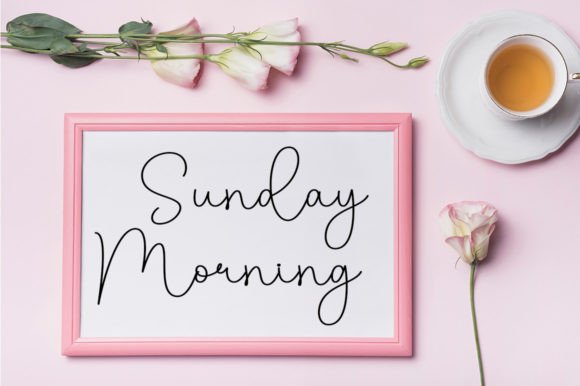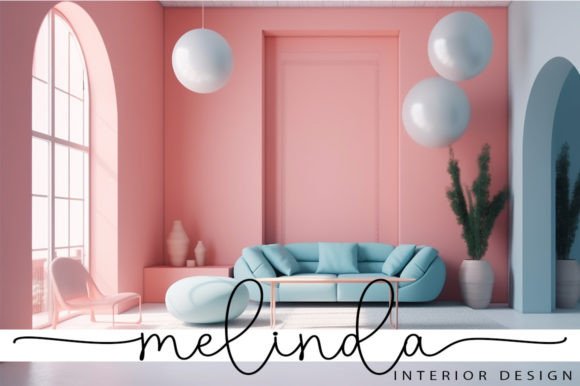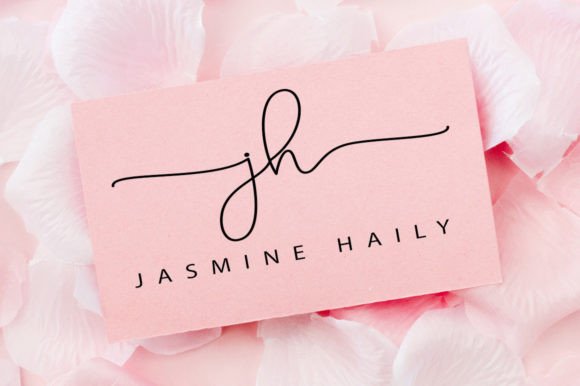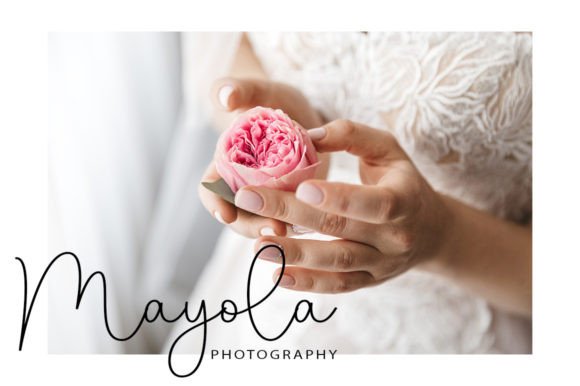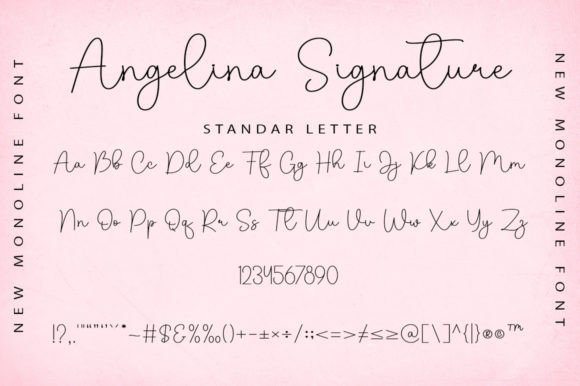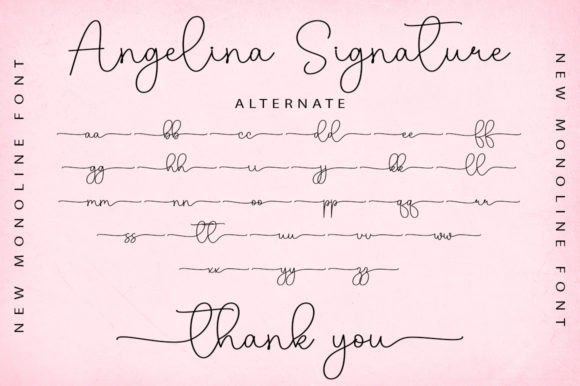
The Angelina Signature Font: Elevate Your Designs with Elegance
As a designer, I’m always on the lookout for fonts that can add a touch of sophistication to my projects. Here’s what I think about the Angelina Signature font:
- ✅ Elegant and eye-catching: The unique, flowing lines and graceful curves of this handwritten font make it perfect for adding visual interest to your designs.
- ✅ PUA encoded: This means you can access all glyphs and swashes effortlessly, making it easy to customize your text.
- ✅ Versatile: From wedding invitations to branding materials, this font can be used for a wide range of projects.
Now, I’m not going to sugarcoat it – there are a few quirks to be aware of:
- ⚠️ Some characters may require manual kerning: Depending on the platform you’re using, you might need to adjust the kerning of certain characters to get the perfect look.
- 🤔 Not ideal for body text: Due to its elegant, cursive nature, this font might not be the best choice for long blocks of text.
The Story Behind Angelina Signature
The Angelina Signature font was designed with elegance and sophistication in mind. Inspired by the flowing lines of handwritten calligraphy, this font is perfect for designers who want to add a touch of luxury to their projects. Whether you’re working on a wedding invitation or a branding campaign, Angelina Signature is sure to impress. 💫
| Font Name | Angelina Signature Font |
| Author | wahyu studio |
Q: Is Angelina Signature suitable for body text?
A: While Angelina Signature is a beautiful font, it’s not ideal for long blocks of text. Its elegant, cursive nature makes it better suited for headings, titles, or short paragraphs.